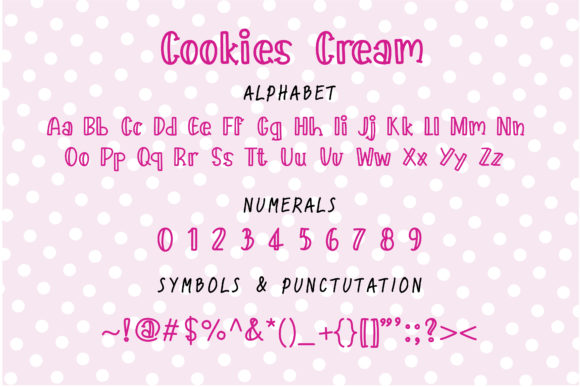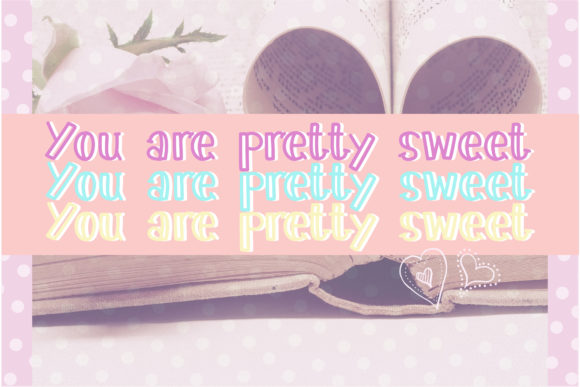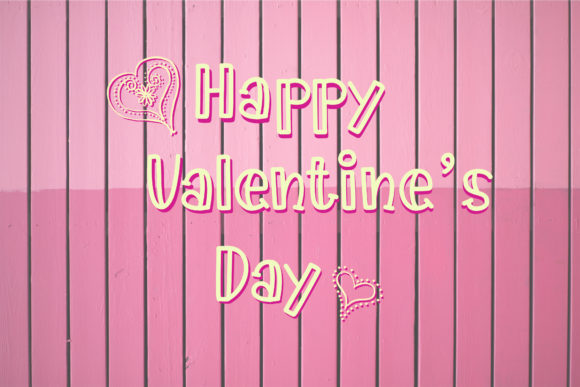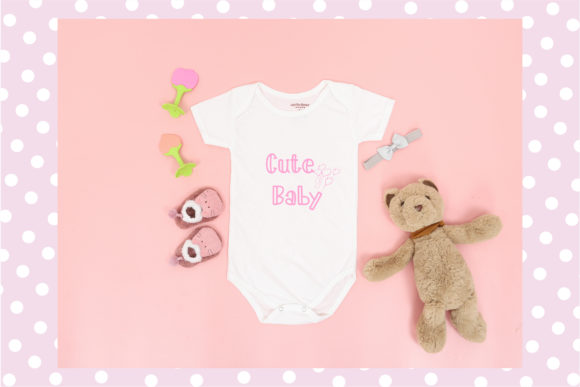
Cookies Cream Font: The Whimsical and Cool Display Font You Need
Are you looking for a font that can add a touch of whimsy and coolness to your designs? Look no further than the Cookies Cream font! This expertly designed display font is perfect for making your creations stand out and look out of this world. In this article, we’ll dive into the features and benefits of the Cookies Cream font, and explore how you can use it to take your designs to the next level.
What is Cookies Cream Font?
Cookies Cream font is a unique and creative display font that is designed to add a touch of playfulness and fun to your designs. With its whimsical and cool style, this font is perfect for designers and crafters who want to create eye-catching and engaging content. Whether you’re working on a logo, poster, or social media graphic, the Cookies Cream font is sure to make your creation look amazing.
Key Features of Cookies Cream Font
- Whimsical and Cool Style: The Cookies Cream font has a unique and playful style that is sure to grab attention.
- Display Font: The Cookies Cream font is a display font, making it perfect for headlines, titles, and other prominent text elements.
- Easy to Read: Despite its playful style, the Cookies Cream font is easy to read and understand, making it perfect for use in a variety of contexts.
Benefits of Using Cookies Cream Font
So why should you use the Cookies Cream font in your designs? Here are just a few benefits of using this amazing font:
- Adds a Touch of Whimsy: The Cookies Cream font adds a touch of playfulness and fun to your designs, making them more engaging and eye-catching.
- Perfect for Creative Projects: This font is perfect for creative projects, such as logos, posters, and social media graphics.
- Versatile: This font can be used in a variety of contexts, from digital designs to print projects.
Ideas for Using Cookies Cream Font
The Cookies Cream font is versatile and can be used in a variety of contexts. Here are a few ideas to get you started:
- Logos and Branding: Use the Cookies Cream font to create a unique and eye-catching logo for your business or brand.
- Posters and Flyers: Use this font to create eye-catching posters and flyers for events, promotions, and more.
- Social Media Graphics: Use the Cookies Cream font to create engaging social media graphics that grab attention.
- Party Decorations: Use this font to create party decorations, such as banners and signs.